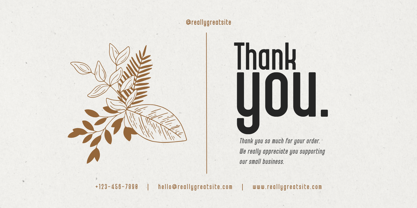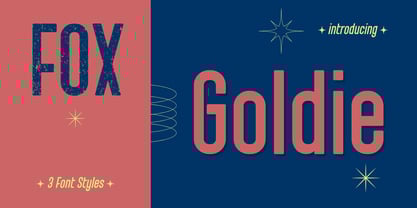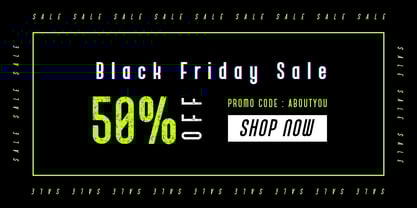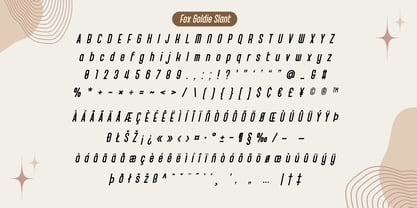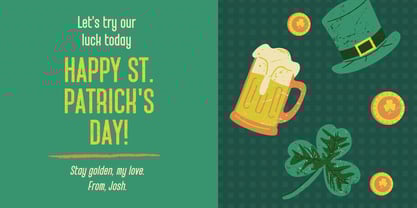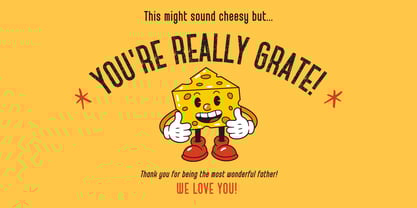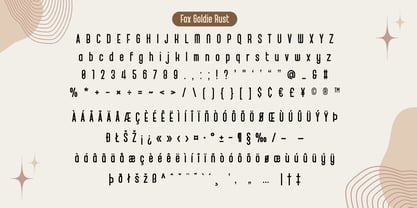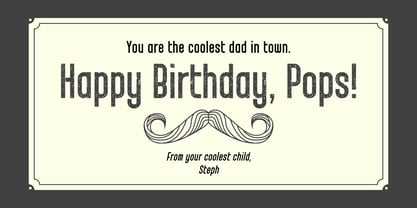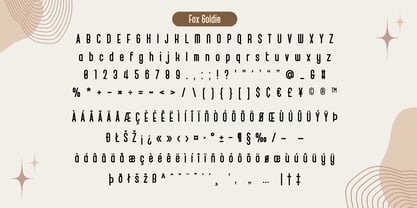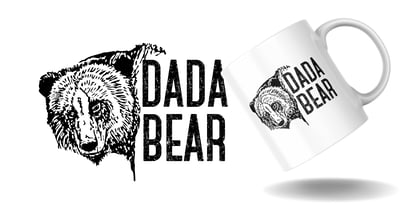
Fox Goldie
La famille de polices Fox Goldie a été conçue par Rattana Rattanawan et publiée par Fox7. Fox Goldie contient 3 styles et options de package familial.
Fox Goldie Trio Fonts is a bold and versatile typeface collection designed to meet a variety of creative needs. Featuring three unique styles—Regular, Rust, and Slant. Whether you're working on logos, posters, packaging, or web design, Fox Goldie Trio Fonts combines flexibility and personality to elevate your work.